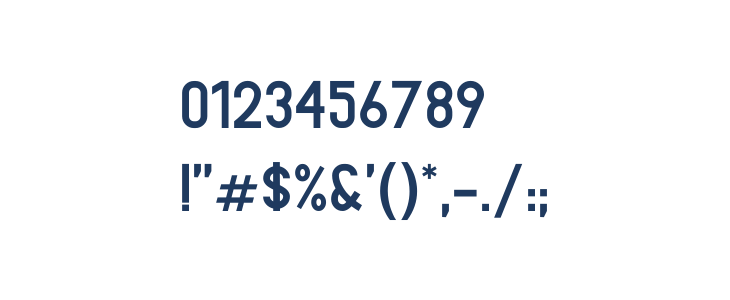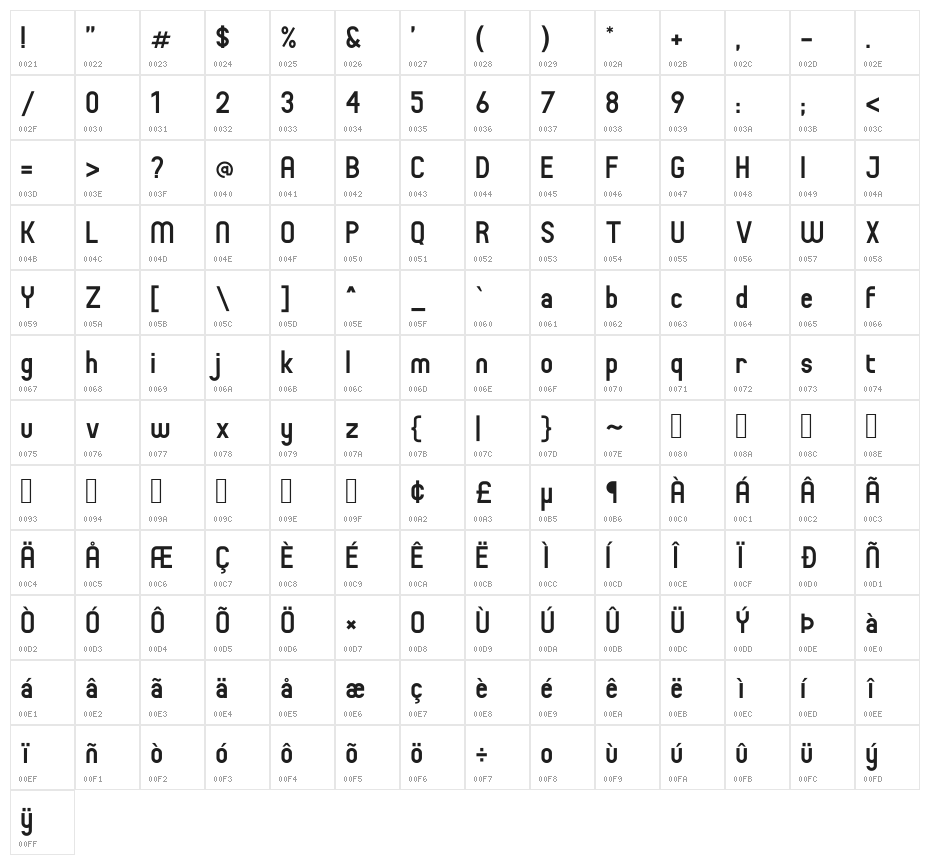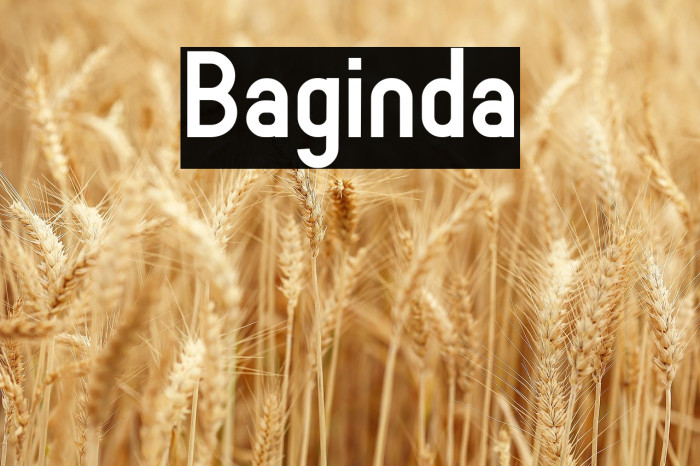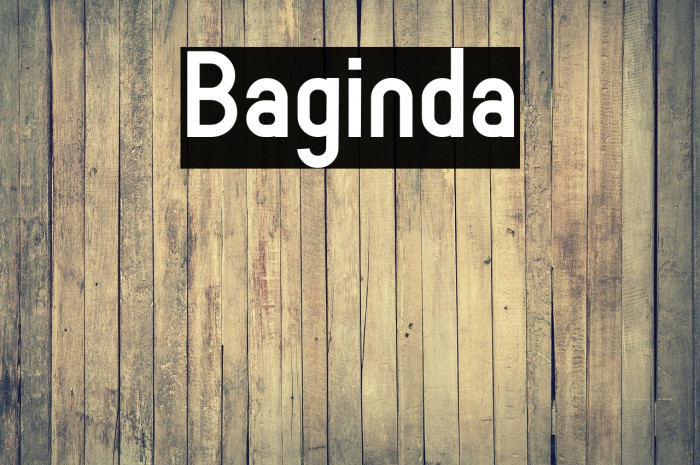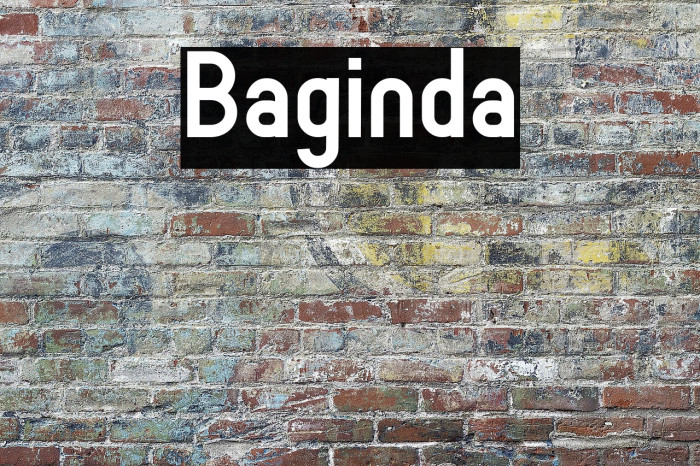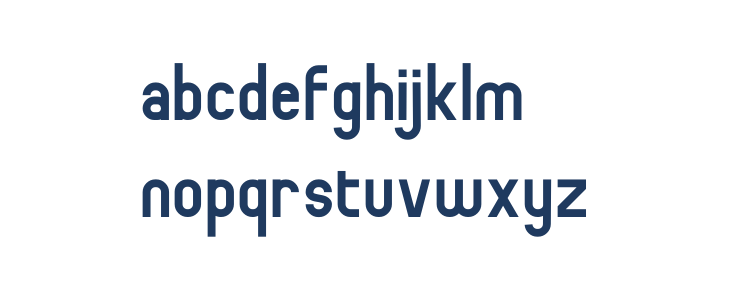
Baginda Font
Baginda Description
This font features a modern and clean sans-serif style with a geometric structure. The characters are uniform in width, providing a balanced and harmonious appearance. The uppercase letters are bold and impactful, while the lowercase letters maintain a consistent height, enhancing readability. The numerals are clear and distinct, making them suitable for various applications. Special characters are well-defined, adding versatility to the font. Overall, this typeface exudes a contemporary feel, making it ideal for digital and print media.
Use CaseHeadlines, Logos, Digital Media
Proposed ProjectsIdeal for branding, web design, advertising, and editorial layouts.